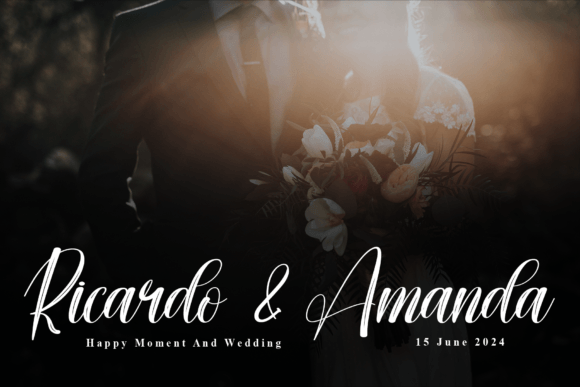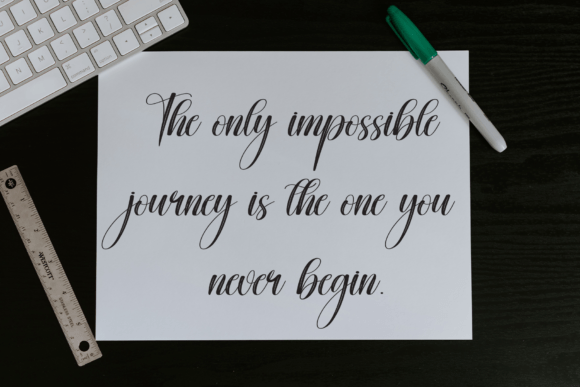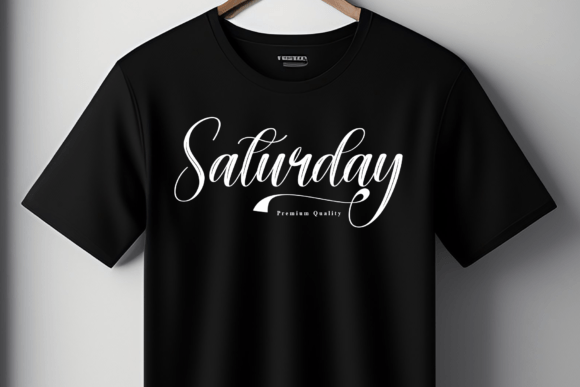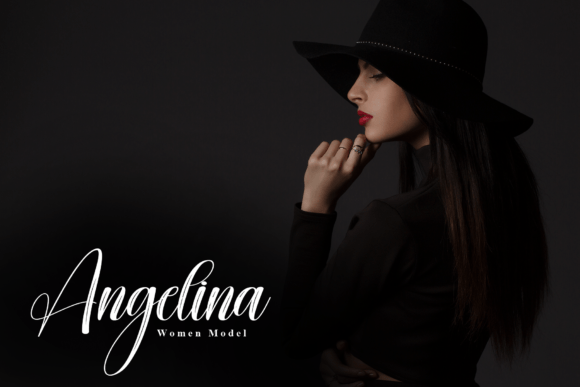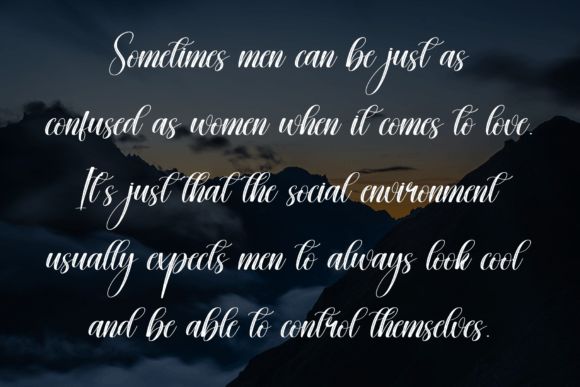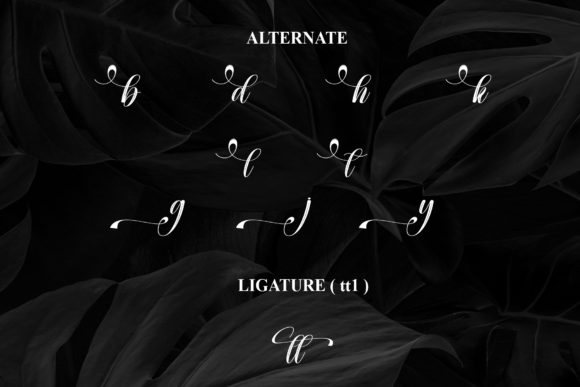
Introducing Handwritting Font: The Sweet and Friendly Choice for Designers
Are you tired of using the same old fonts in your designs? Do you want to add a personal touch to your projects? Look no further than Handwritting Font, a sweet and friendly handwritten font that’s perfect for a wide range of designs. With its natural and unique style, Handwritting Font is incredibly versatile and can be used in everything from greeting cards to posters, and from social media graphics to branding materials.
Handwritten fonts have a way of adding a personal touch to any design. They’re warm, inviting, and convey a sense of personality that’s hard to replicate with more formal fonts. And Handwritting Font is no exception. Its natural, flowing script is reminiscent of handwriting, making it perfect for designs that need a friendly and approachable feel.
What Makes Handwritting Font So Special?
So, what sets Handwritting Font apart from other handwritten fonts? For starters, its unique style is incredibly versatile. Whether you’re designing a children’s book, a wedding invitation, or a social media graphic, Handwritting Font is sure to fit right in. And with its clear, easy-to-read letters, it’s perfect for designs that need to communicate a message.
Another thing that makes Handwritting Font so special is its ability to evoke emotions. Handwritten fonts have a way of conveying warmth and personality, making them perfect for designs that need to connect with the viewer on an emotional level. And with Handwritting Font, you can create designs that feel truly personal and authentic.
The best part about Handwritting Font is that the design possibilities are endless. Whether you’re a designer, a crafter, or simply someone who loves to create, Handwritting Font is the perfect choice for your next project. Here are just a few ideas to get you started:
- Create a beautiful wedding invitation or save-the-date card
- Design a set of personalized greeting cards for special occasions
- Make a custom poster or flyer for a event or promotion
- Develop a unique brand identity for your business or product
- Create a set of social media graphics that stand out from the crowd
Tips for Using Handwritting Font
To get the most out of Handwritting Font, here are a few tips to keep in mind:
- Use it in combination with other fonts to create visual interest
- Experiment with different colors and textures to add depth and personality
- Don’t be afraid to get creative and try new things – that’s what Handwritting Font is all about!
In conclusion, Handwritting Font is a sweet and friendly handwritten font that’s perfect for designers and crafters who want to add a personal touch to their projects. With its natural and unique style, Handwritting Font is incredibly versatile and can be used in a wide range of designs. So why settle for a boring, generic font when you can use Handwritting Font to make your designs truly special? The only limit is your imagination!
So go ahead, get creative, and see what amazing designs you can create with Handwritting Font!